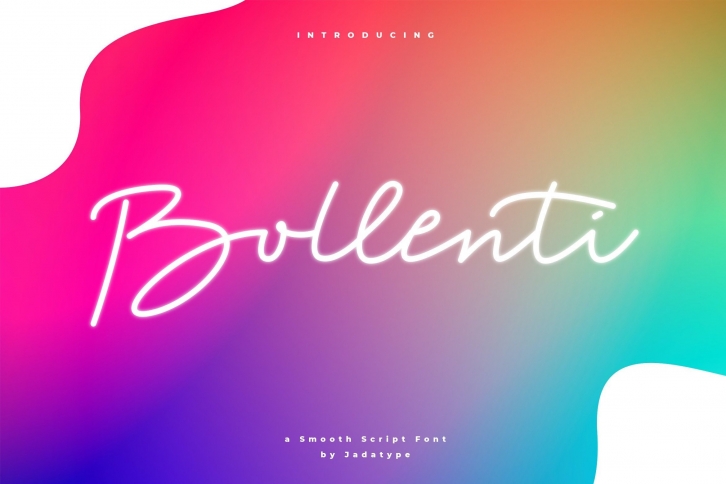
Bollenti is a script font with soft lines. gives the impression of playful and fun. can be used for your social media content, greeting cards, crafts, and others. contains standard English letters, numbers, and punctuation. can be installed in applications such as adobe family or affinity